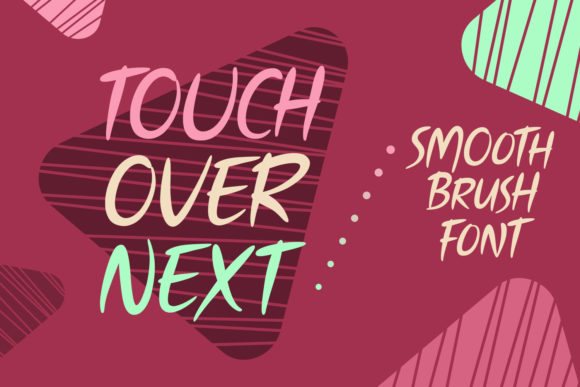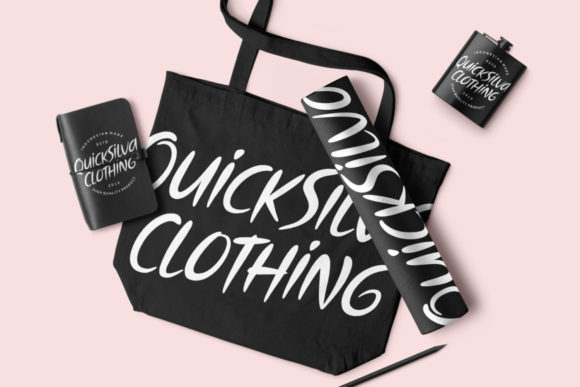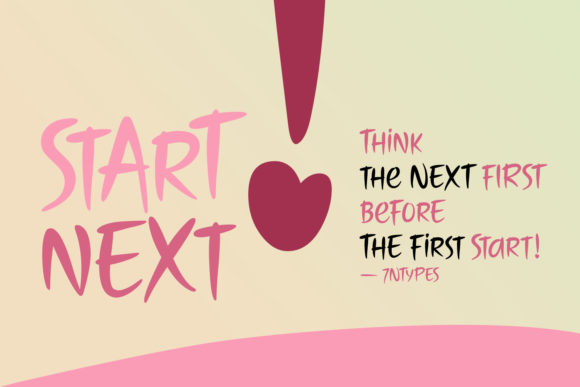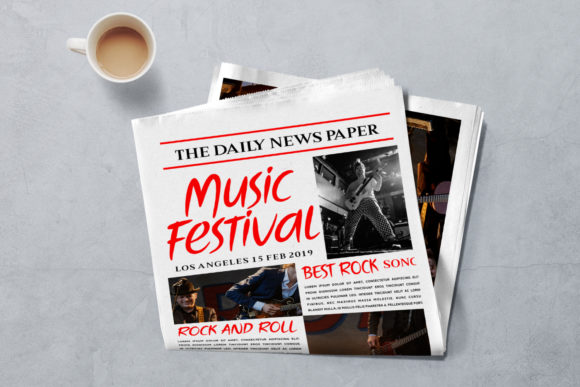
Touch over Next Font
About Touch over Next Font
The Touch Over Next is a smooth brush font. It has an amazing readability and will add a striking touch to your designs.